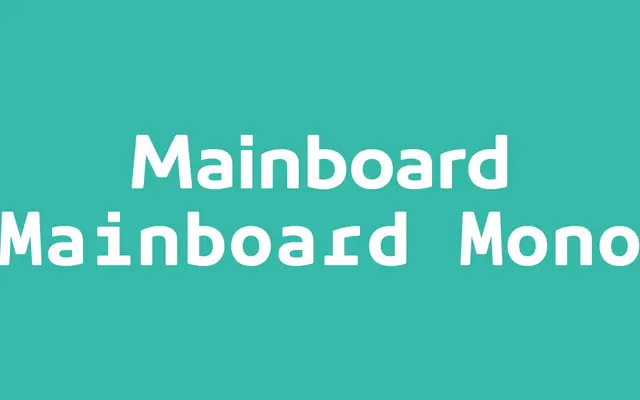
A spurless humanist sans in eight weights with italics, aimed at technology, sports and automotive brands that need legibility across screen and print.
Mainboard strips spurs from letters such as 'g', 'n' and 'r' to achieve a smooth, aerodynamic quality suited to high-tech and sports contexts. Generous apertures and rectangular dots support on-screen legibility at small sizes, while the dynamic curves hold up at stadium scale. The family ships with 600-plus glyphs, several stylistic sets including a single-storey 'a' and slashed zero, and pairs with Mainboard Mono for tables and code.
Described explicitly as a humanist sans; spurless construction with generous apertures and smooth, aerodynamic curves places it firmly in the humanist sans tradition rather than geometric or grotesque.